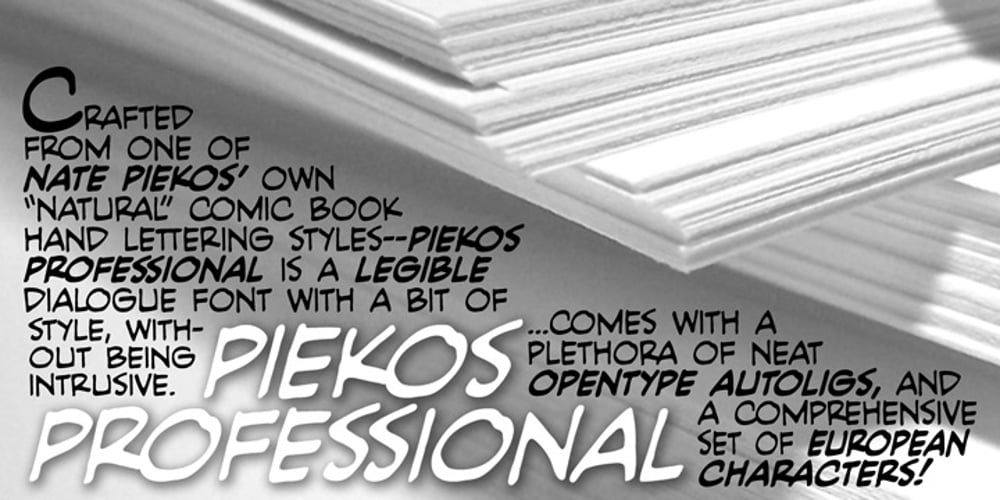
Piekos Professional BB Font Family was designed by Nate Piekos and published by Blambot. Piekos Professional BB contains 6 styles and family package options. Modeled on one of comic letterer, Nate Piekos’ hand lettering styles, Piekos Professional is a simple, legible, comic book font with a bit of flair. Includes Regular, Italic and Bold, with a compliment of European characters. The OpenType version of this font family also comes with Autoligatures to swap out any two identical letters that appear next to one another for a pair that is slightly different. This creates a more hand lettered look.